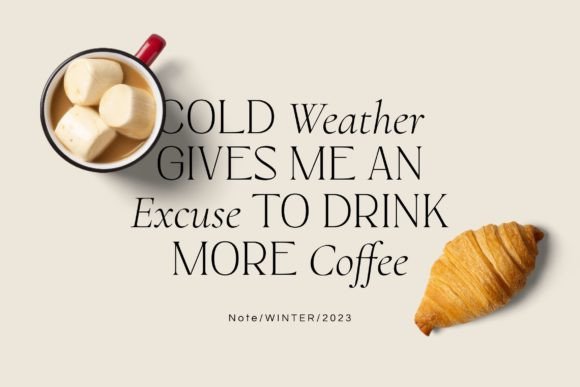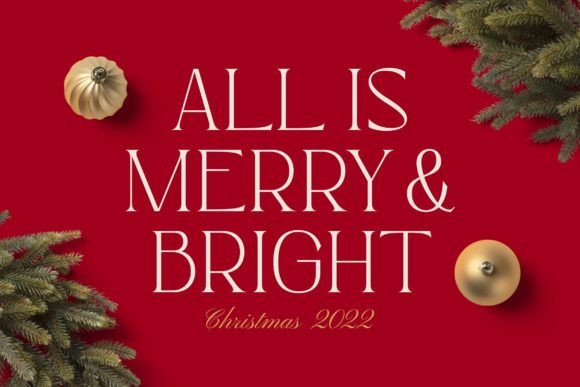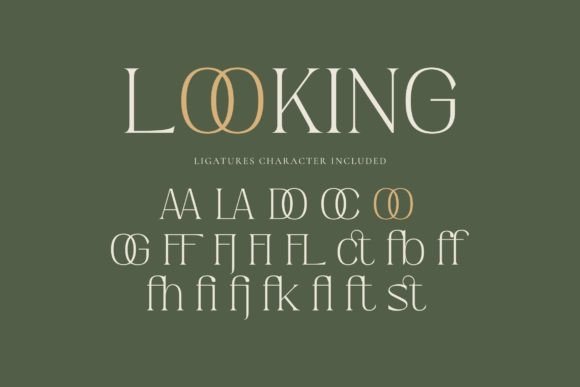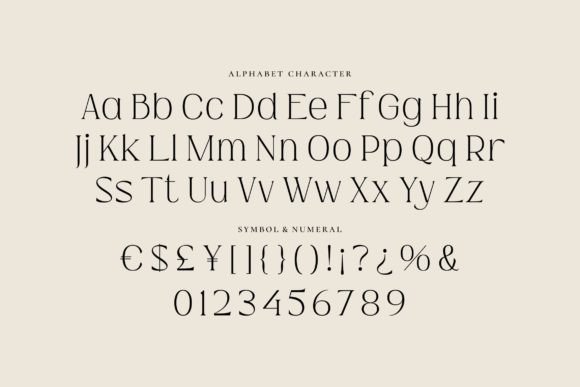
Introduction to Hiden Certon Font Font
Fonts play a crucial role in design, and the Hiden Certon Font font is a typeface that brings both character and versatility to any project. Whether you’re working on a branding project, a website, or a print design, the Hiden Certon Font font offers a unique style that can elevate your work.
Hiden Certon is a stylish, aesthetically pleasing serif font.
Contemporary and fresh, it is perfect for any design you wish to create Add it to your creative projects and make them outstanding.
Key Features of Hiden Certon Font Font
Why Choose Hiden Certon Font Font?
The Hiden Certon Font font is more than just a typeface – it’s a design tool that helps you communicate your message with style and clarity. Its unique character set and versatile design make it suitable for a wide range of applications, from elegant invitations to bold headlines.
With its carefully crafted letterforms and balanced proportions, the Hiden Certon Font font ensures readability and visual appeal across all mediums.
What makes Hiden Certon Font font special?
The Hiden Certon Font font stands out with its unique design, exceptional readability, and versatility across various design applications.